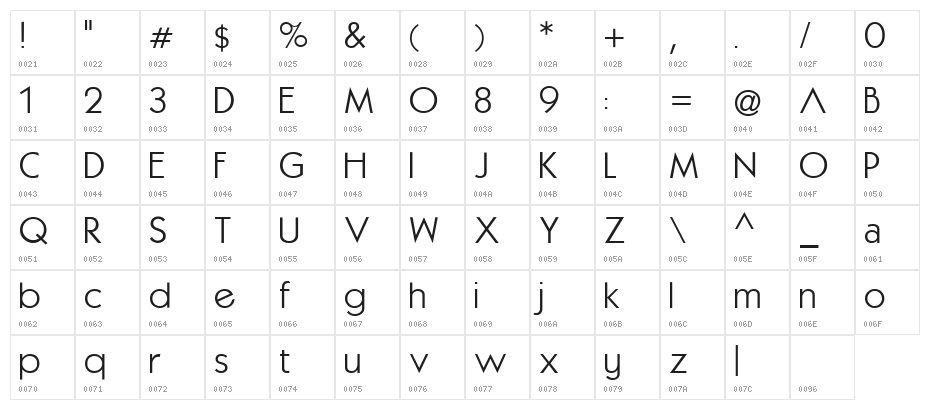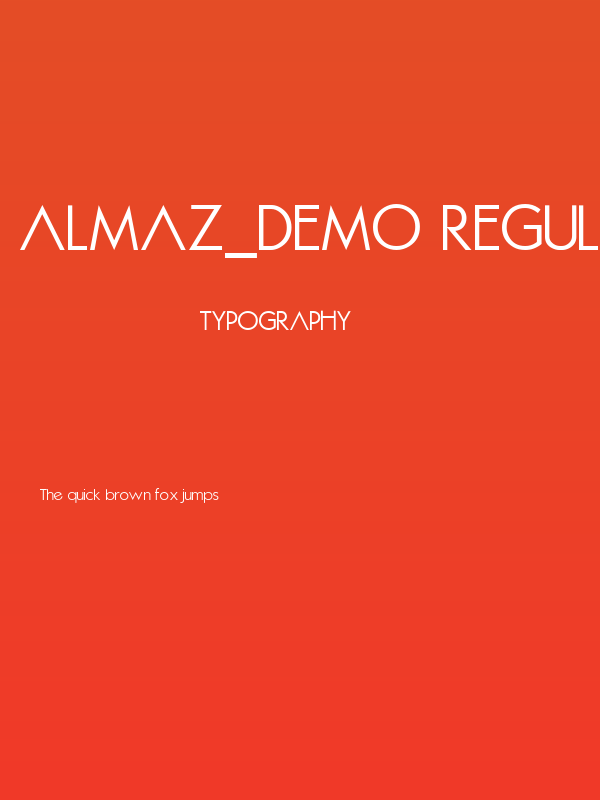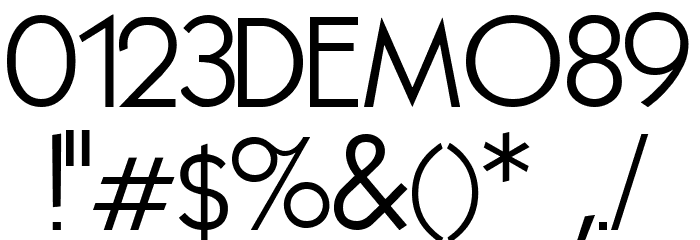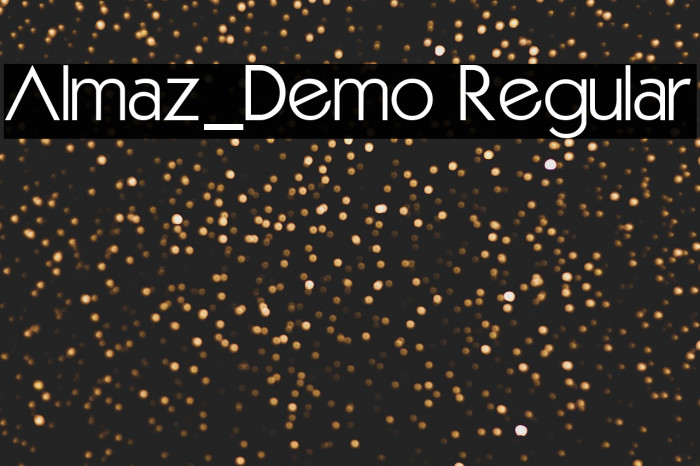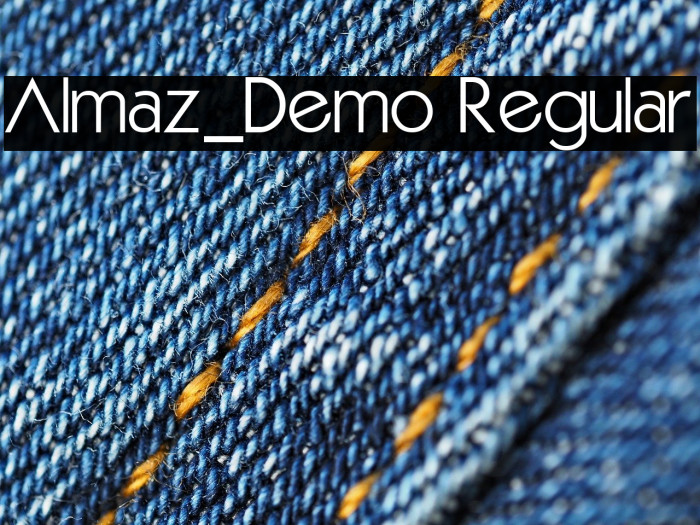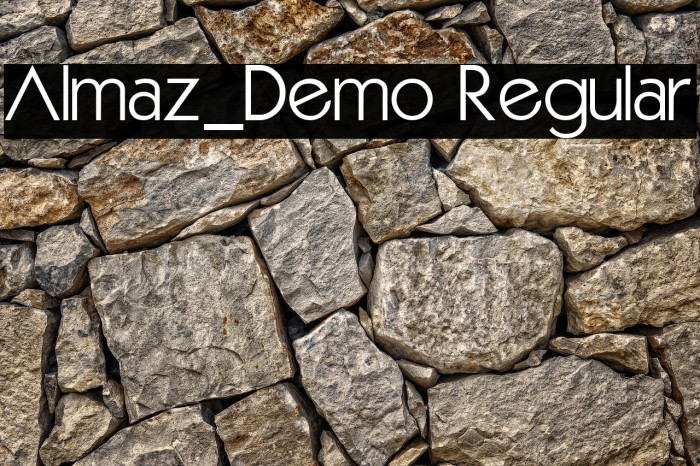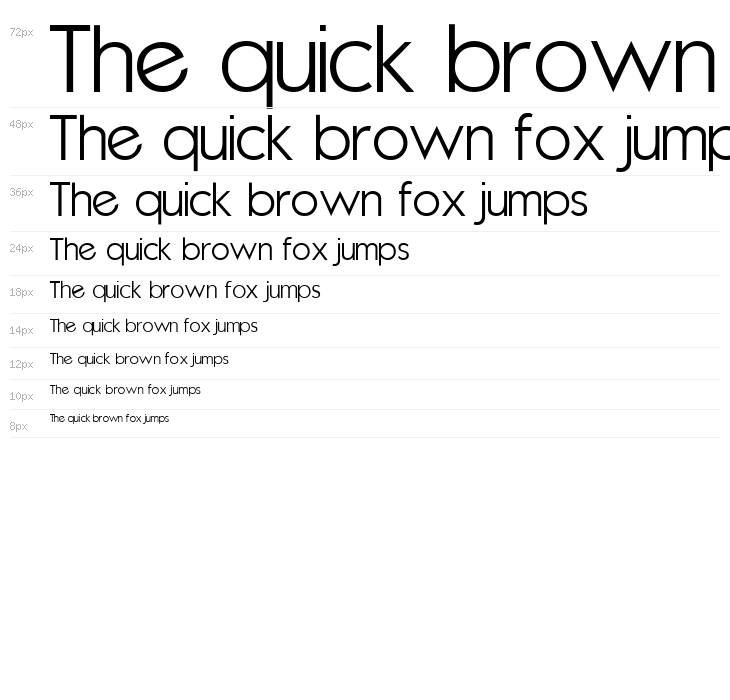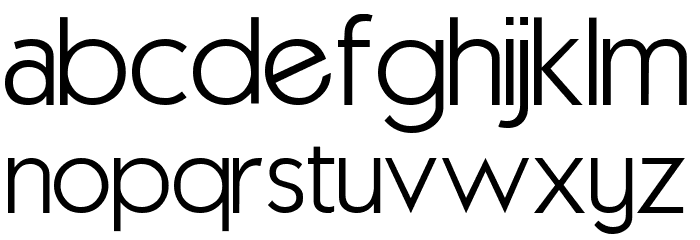
Almaz_Demo Regular Font
Almaz_Demo Regular Description
This font exhibits a sleek and modern design with clean lines and geometric shapes. The uppercase letters are bold and striking, featuring sharp angles and a consistent height that conveys a sense of balance and precision. The lowercase letters maintain a similar geometric style, with rounded edges that add a touch of softness to the overall appearance. Numbers and special characters are designed to match the font's modern aesthetic, ensuring a cohesive look across all text elements. The font's simplicity and clarity make it highly legible, suitable for various design applications.